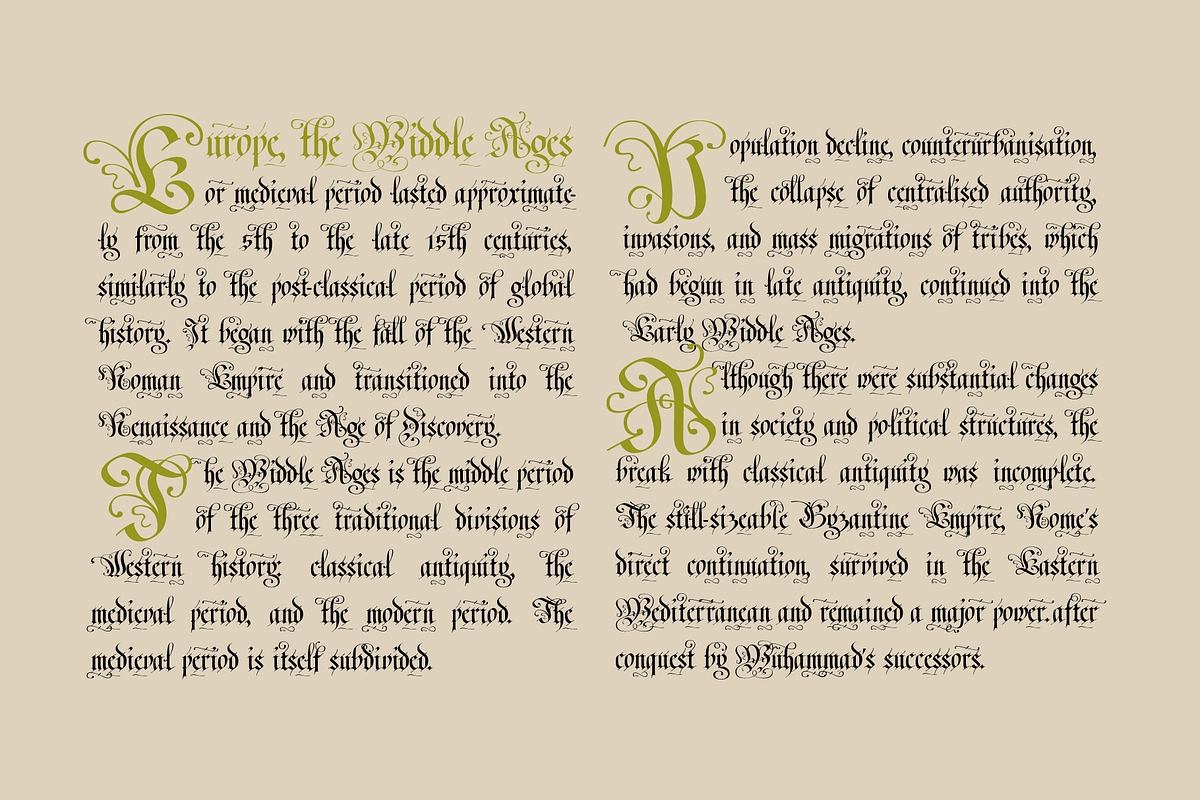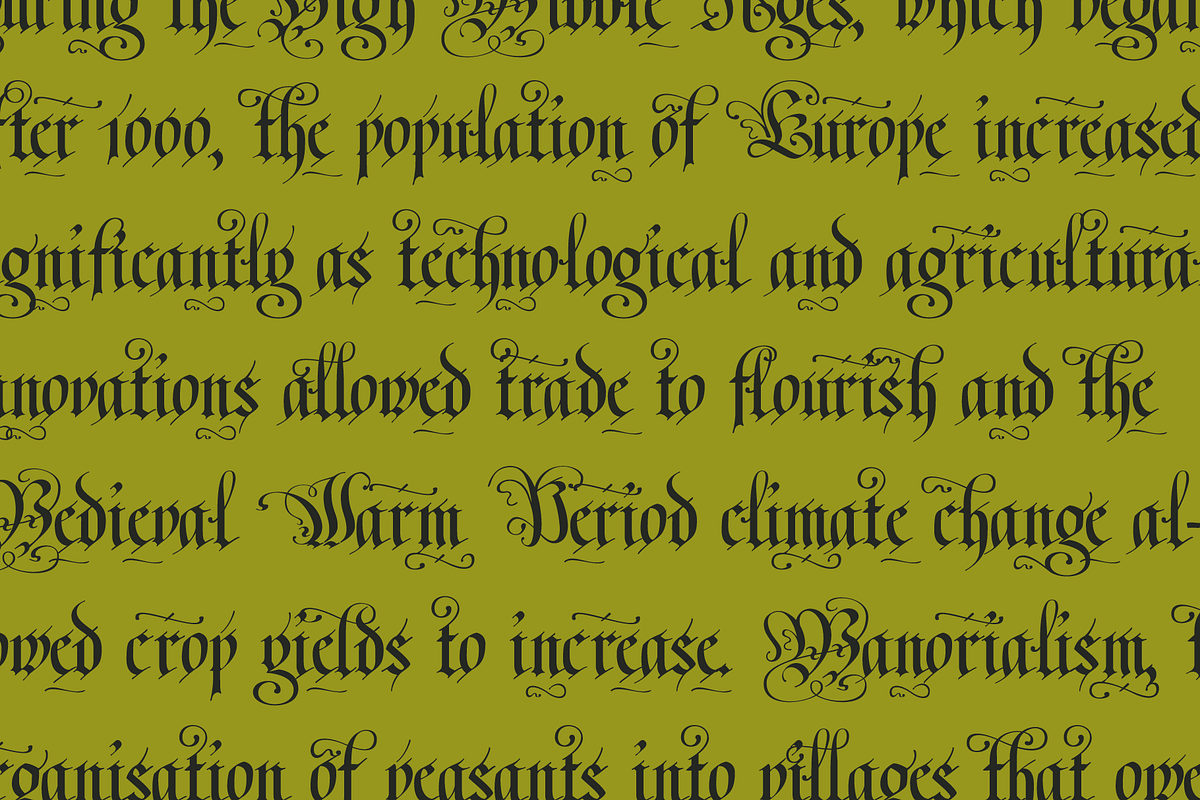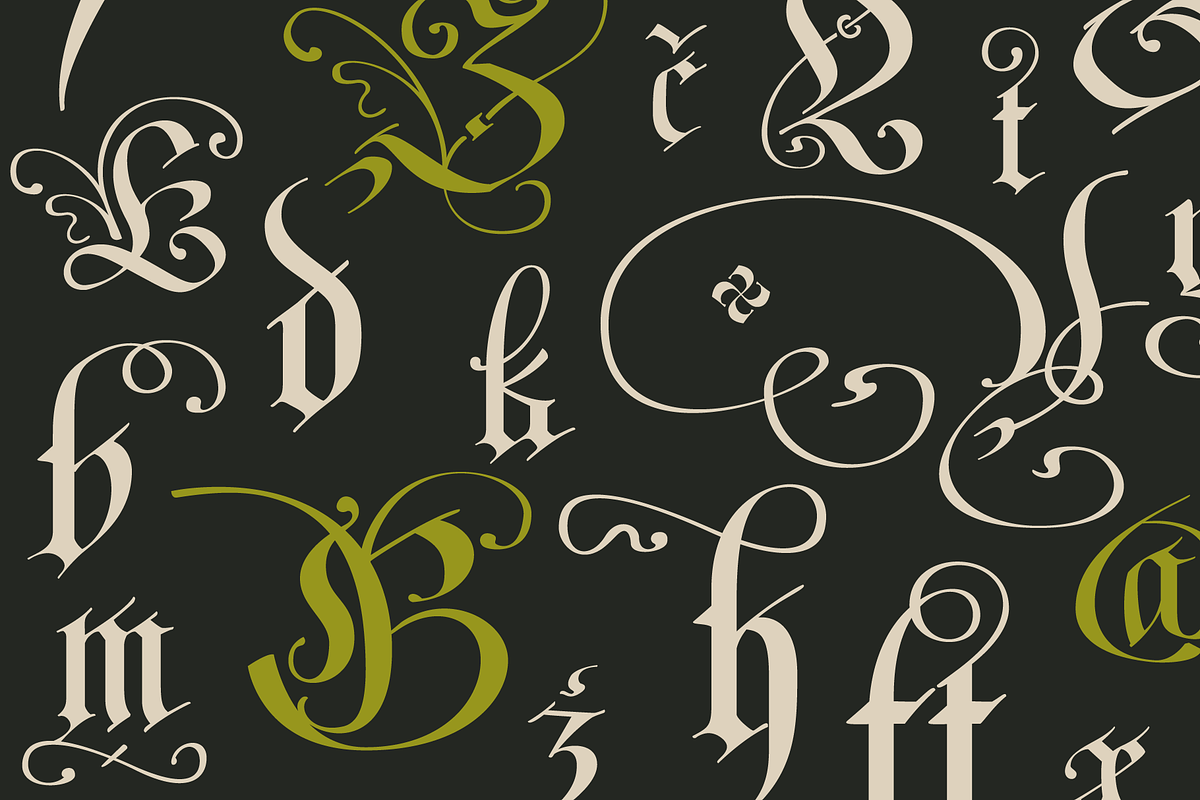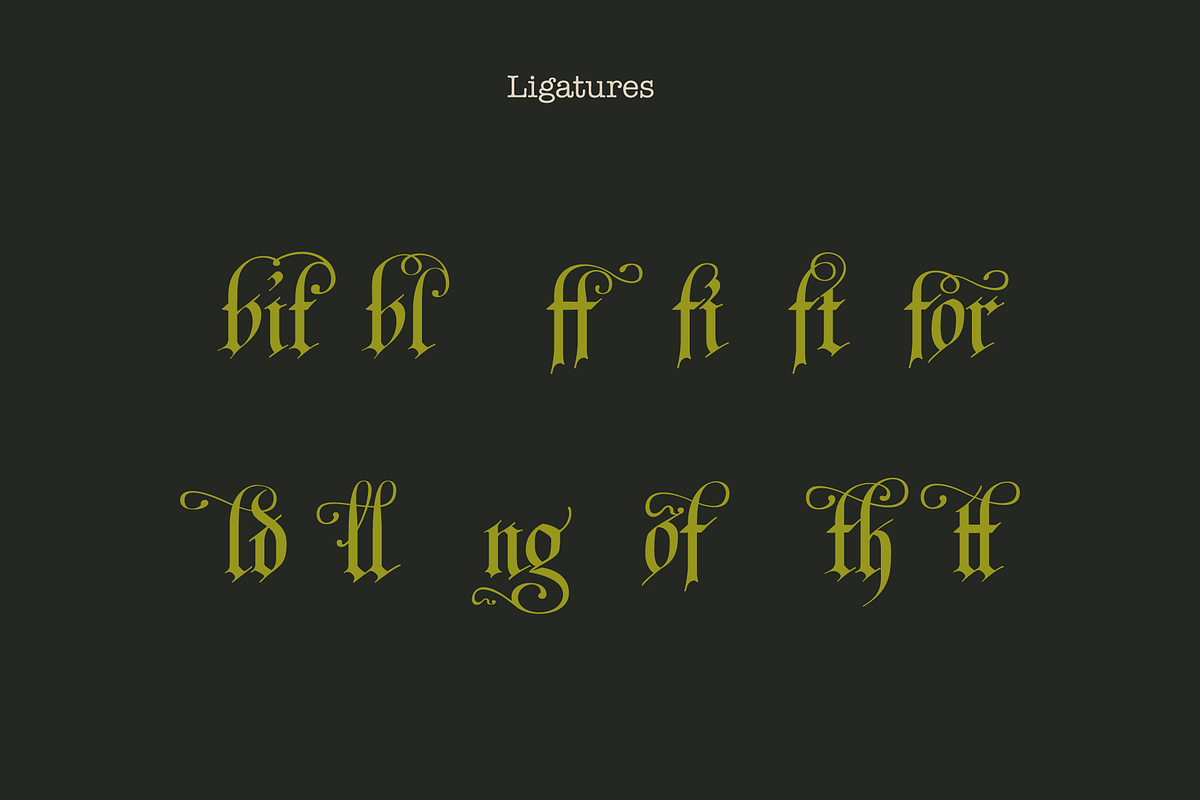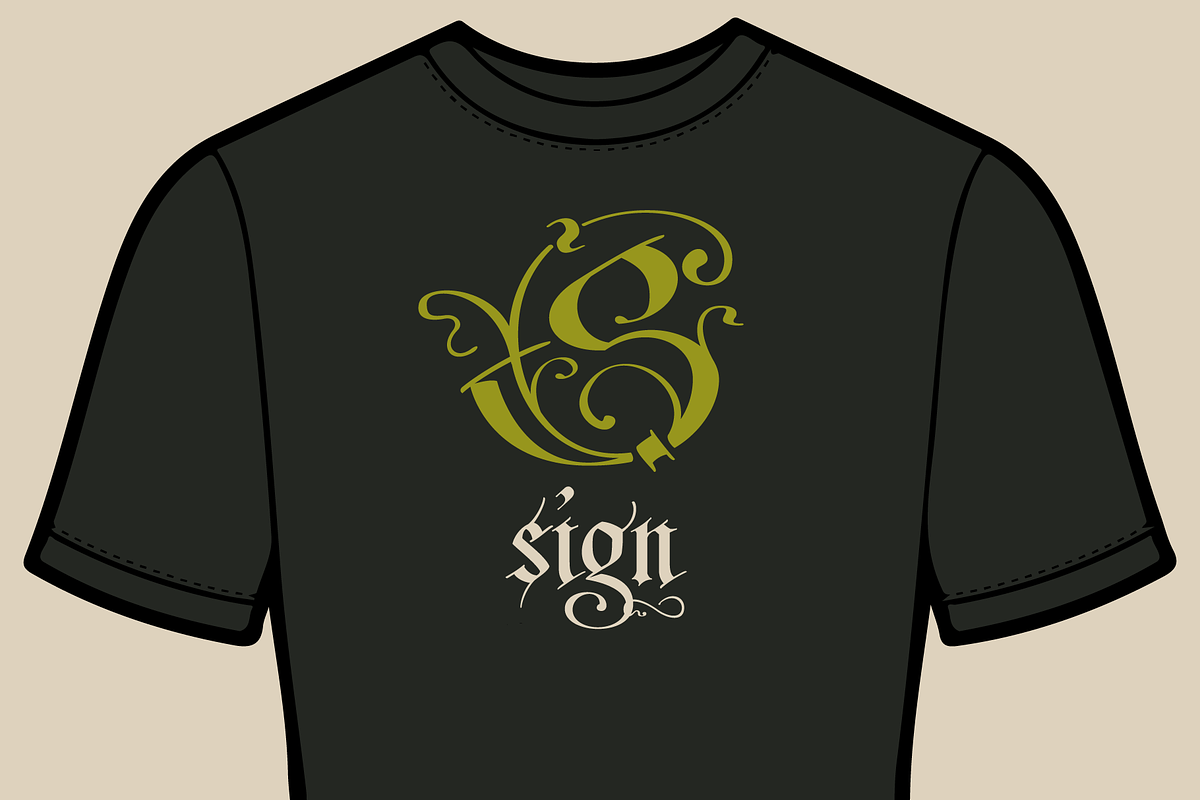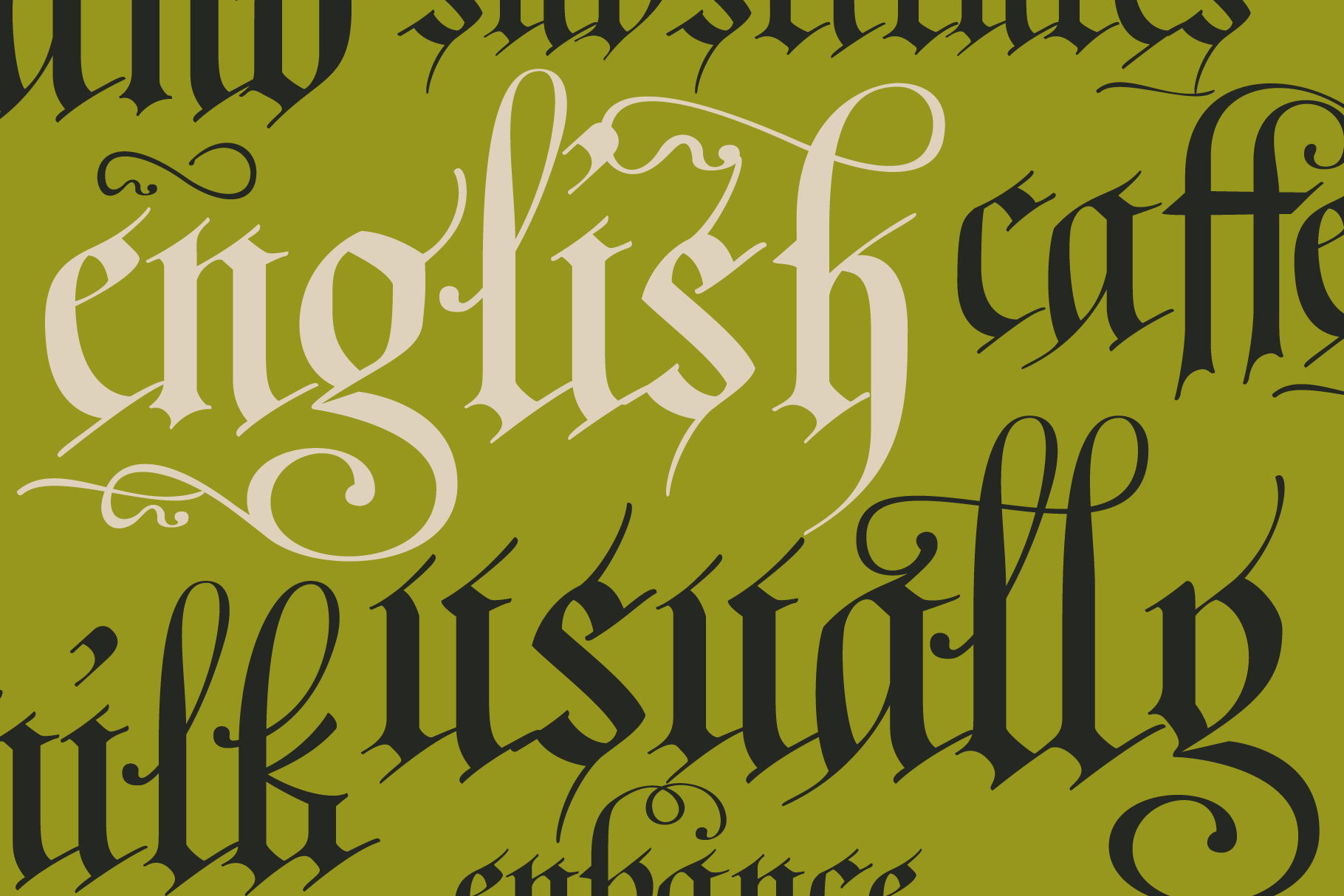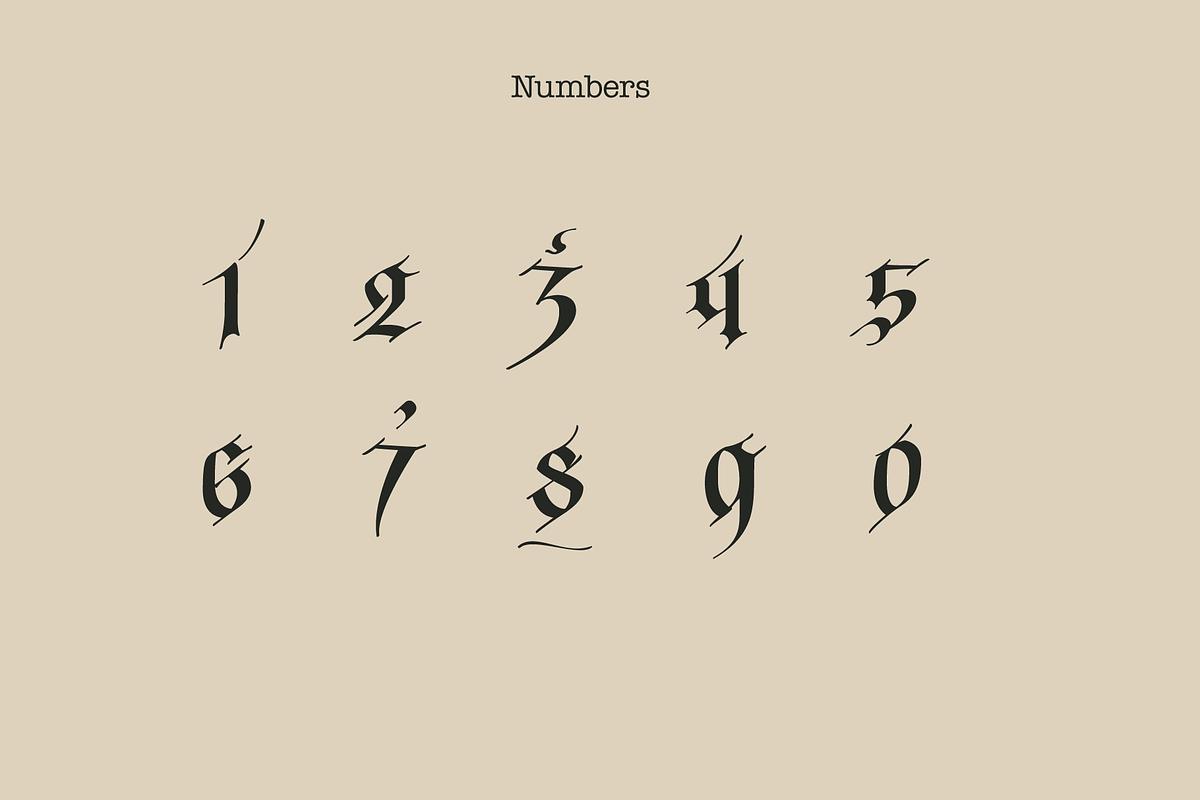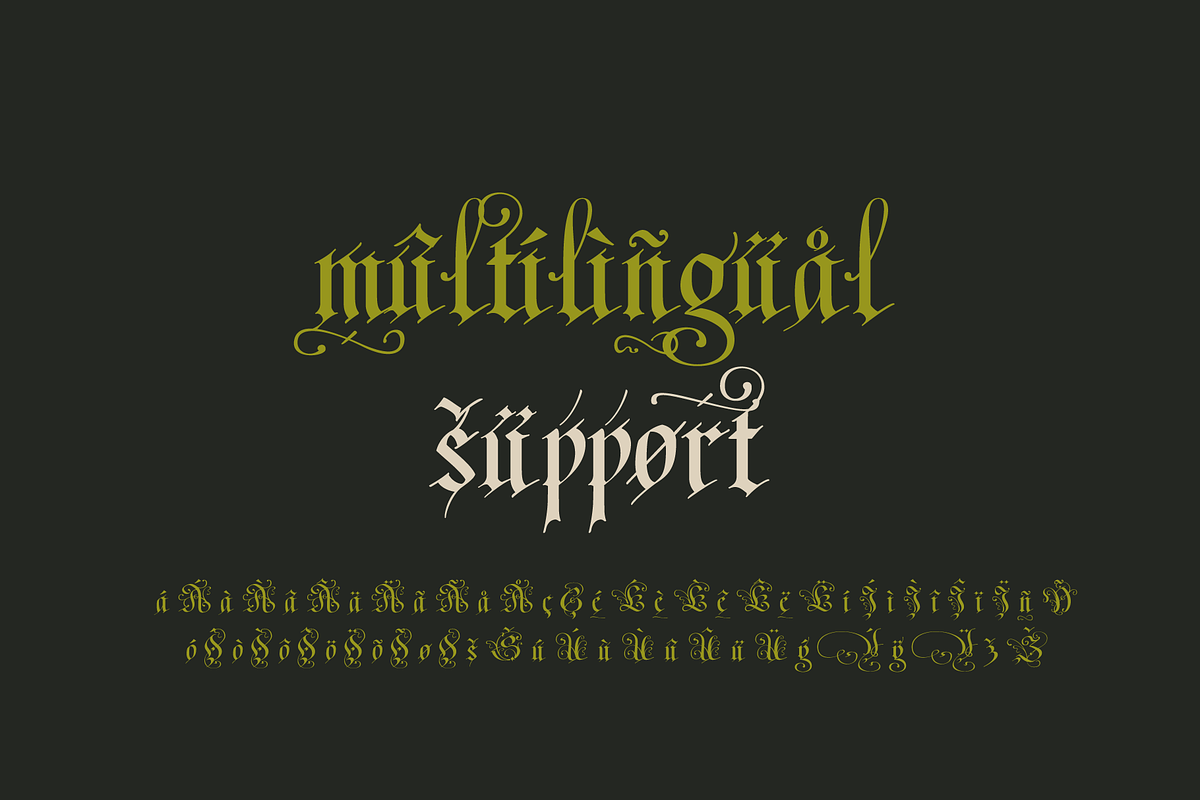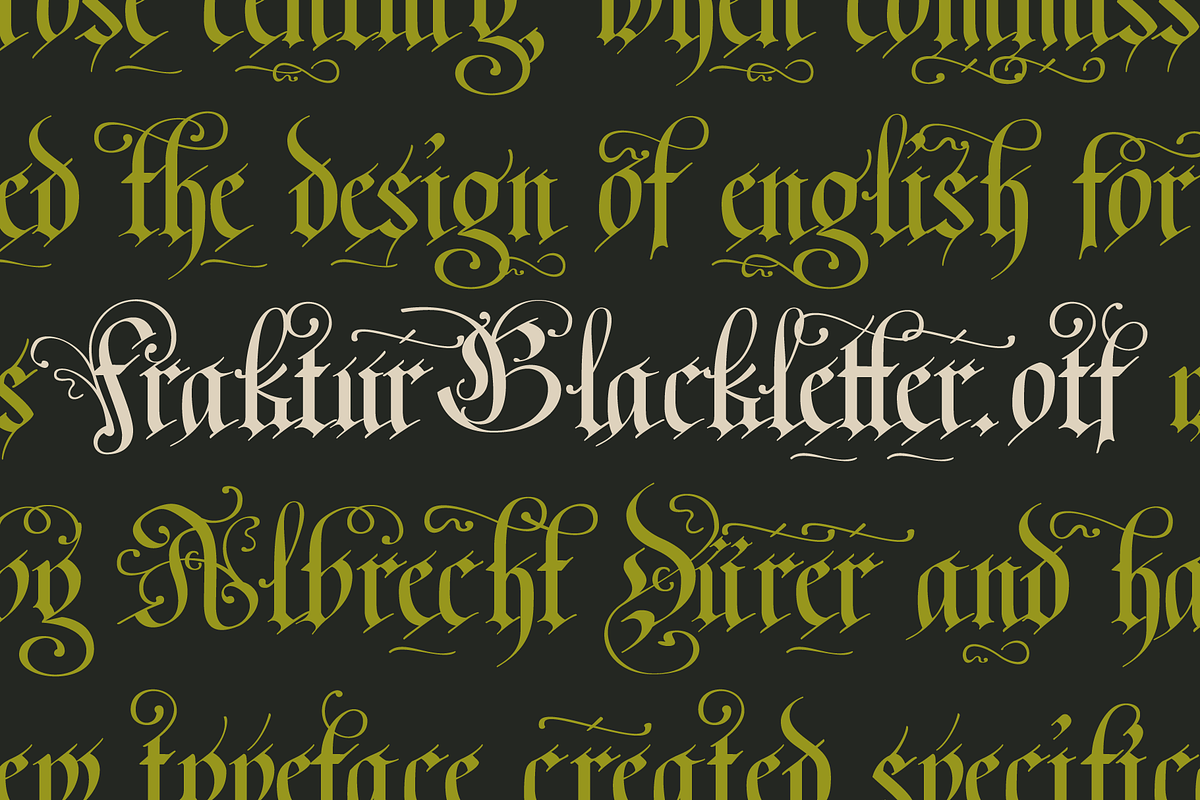
Fraktur Blackletter Gothic Font
I took inspiration for this font in a Copybook by Trautner from Nuremberg, which was written in 1695.
Fraktur is a calligraphic typeface. It is designed such that the beginnings and ends of the individual strokes that make up each letter will be clearly visible, and often emphasized.